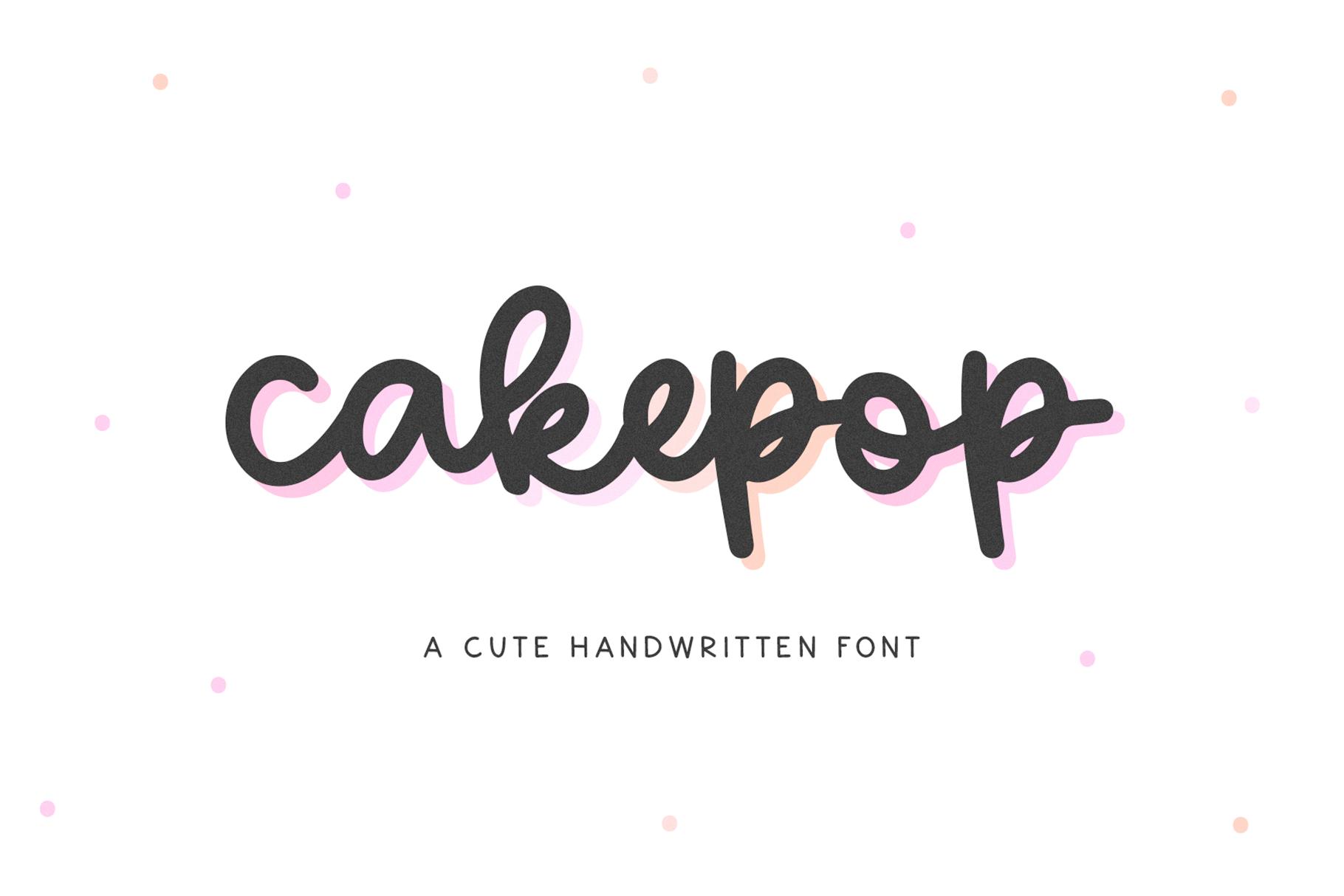
Cakepop | Handwritten Script Font
Cakepop is a cute handwritten script font!
This font is perfect for all of your craft projects, branding, quotes, prints, logos, social media , kid's decor, clothing, svg designs and more!